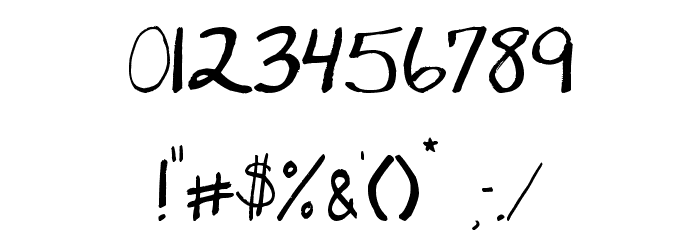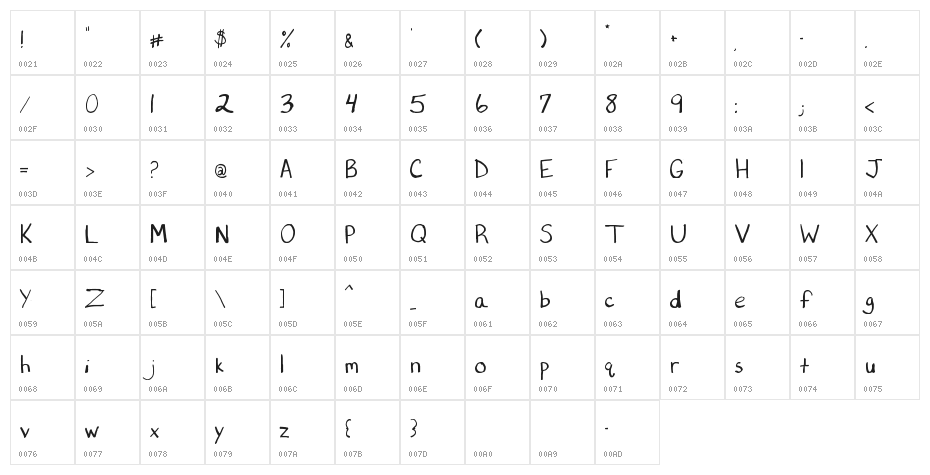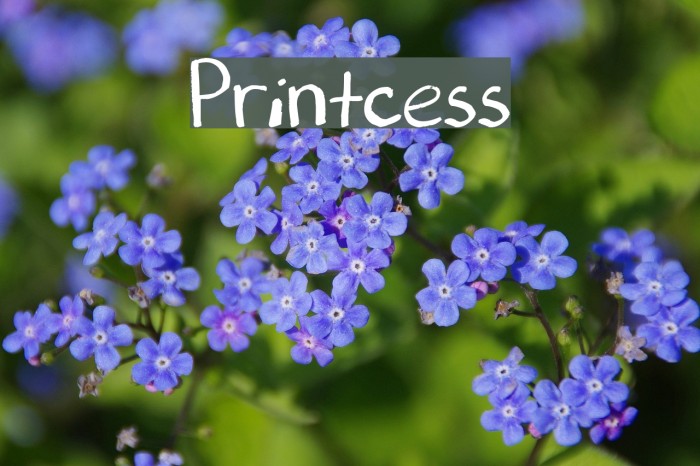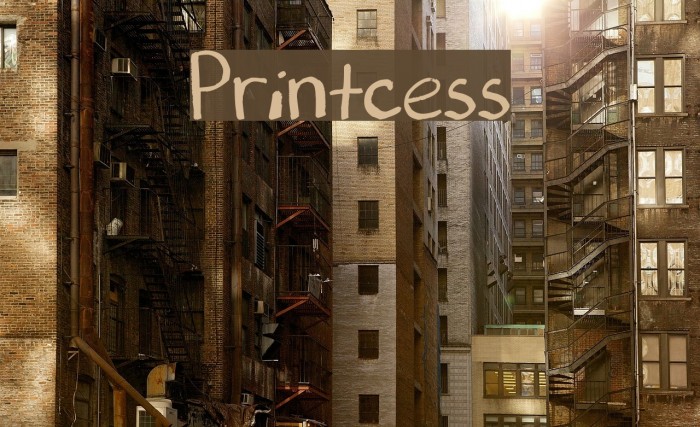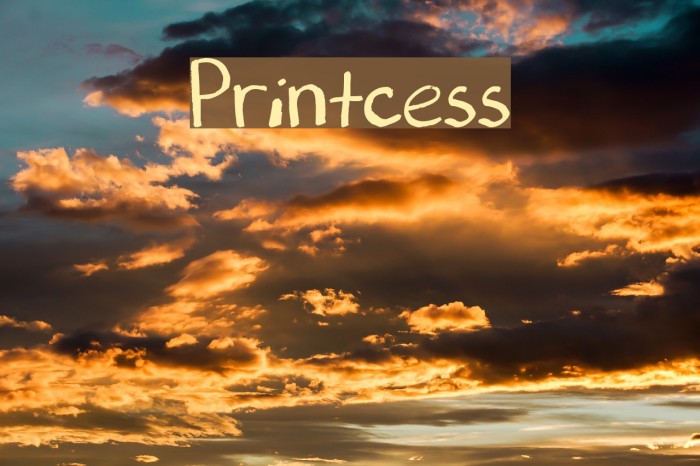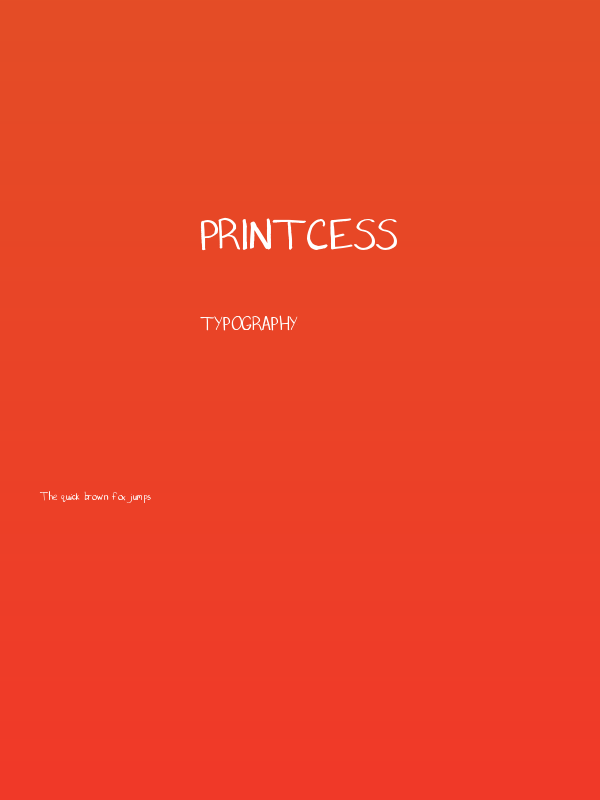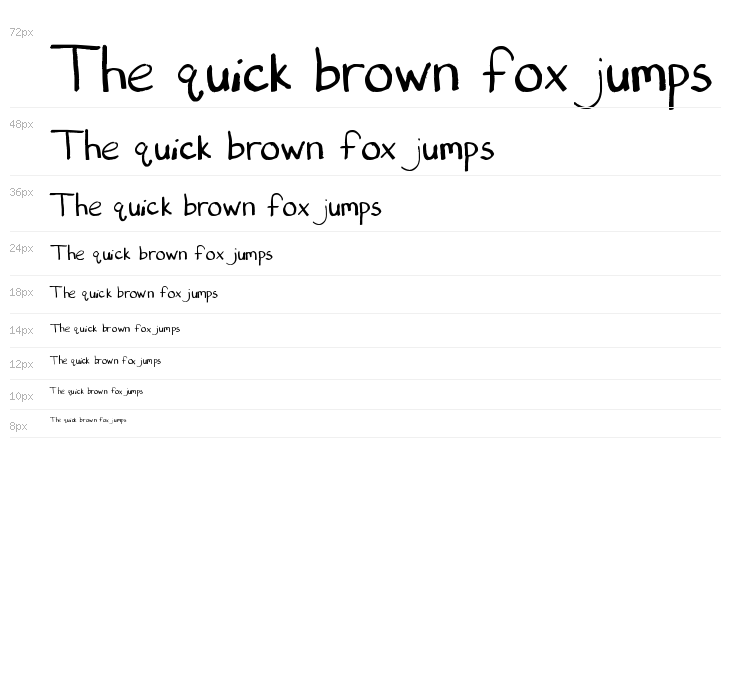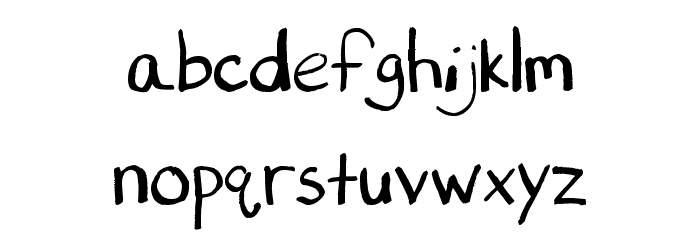
Printcess Font
Printcess Description
This font features a playful and whimsical style, characterized by its hand-drawn appearance. The letters have an uneven baseline and varying stroke widths, giving it a casual and informal feel. The uppercase characters are bold and slightly irregular, while the lowercase letters maintain a consistent yet quirky style. Numbers and special characters follow the same playful design, making the font suitable for creative and fun projects. The overall look is approachable and friendly, perfect for adding a personal touch to any design.